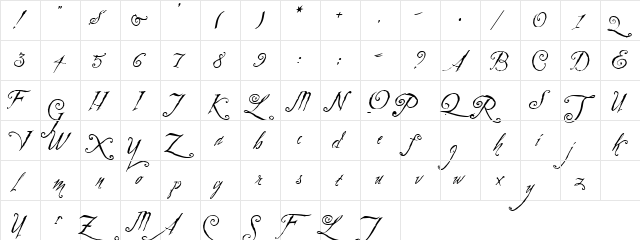
Zothique Regular
Design Context for Zothique Typeface
Zothique is a composed and adaptable typeface that performs quietly and consistently across a wide range of design contexts.